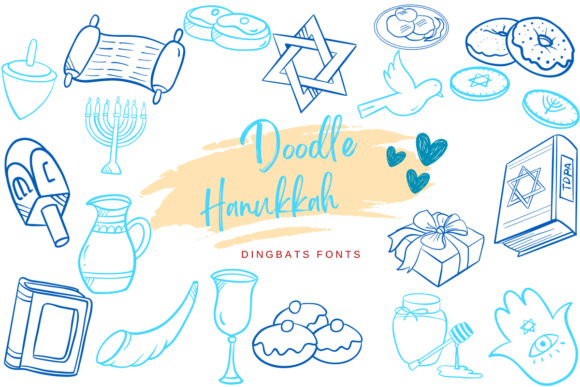
Get Ready to Sparkle Your Creations with the Doodle Hanukkah Font
Have you ever found yourself rummaging through your craft supplies, searching for the perfect embellishment to make your project truly special? Maybe you’re designing a wedding invitation, or creating a DIY decoration for your home. Whatever the occasion, you know that the right font can make all the difference in setting the tone and capturing the essence of your creative vision.
Enter the Doodle Hanukkah Font, a delightful dingbats font that brings a festive touch to any project. With its playful, hand-drawn design, this font is perfect for adding a personal and whimsical feel to your designs. Whether you’re a seasoned designer or a crafty enthusiast, the Doodle Hanukkah Font is a valuable addition to your creative arsenal.
Doodle Hanukkah Font Key Features
- Font Family: A unique, hand-drawn font designed specifically for Hanukkah celebrations, featuring traditional and modern elements.
- Character Set: Includes a wide range of characters, including Latin, Hebrew, and special Hanukkah-themed glyphs.
- Unique Characteristics: Features intricate doodle elements, festive patterns, and traditional Hanukkah symbols, adding a touch of personality to any design.
Doodle Hanukkah Font Review
I recently had the chance to work with the “Doodle Hanukkah Font” and here’s my honest take on it.
- The font has a great, playful feel to it, perfect for adding some whimsy to your holiday designs.
- The doodle elements add a fun, hand-drawn touch that’s sure to make your designs stand out.
- The font is highly customizable, allowing you to adjust the size, color, and doodle style to fit your project’s needs.
- The font may be a bit too busy for more formal or minimalist designs.
- Some users may find the doodle elements to be distracting or overwhelming in certain contexts.
- The font’s availability is limited to specific holidays and occasions, which may not be ideal for year-round use.
Overall, I think the “Doodle Hanukkah Font” is a great addition to any designer’s toolkit, especially for holiday-themed projects. With its playful feel and high level of customization, it’s sure to bring a smile to your clients’ faces. Just be mindful of its limitations and use it judiciously to get the best results.
Doodle Hanukkah Font: A Practical Application Guide
Some common use cases for the Doodle Hanukkah Font include:
Designing invitations for Hanukkah parties or events.
Creating custom graphics for social media or websites.
Adding a festive touch to holiday cards or gift tags.
Alternatives to Doodle Hanukkah Font
Menorah Script
Menorah Script is a beautiful, cursive font that’s perfect for adding a touch of elegance to your Hanukkah designs. It features intricate details and a traditional feel that’s reminiscent of ancient Jewish script. When to use: Use Menorah Script for formal invitations, wedding stationery, or other high-end designs where you want to convey sophistication and tradition.
Menorah Script compares to Doodle Hanukkah Font in that it also features a traditional feel, but it’s more formal and elegant. While Doodle Hanukkah Font is playful and fun, Menorah Script is more refined and sophisticated.
Hanukkah Nights
Hanukkah Nights is a modern, sans-serif font that’s perfect for creating bold and eye-catching designs. It features a clean, minimalist aesthetic that’s great for digital designs, such as social media graphics and website headers. When to use: Use Hanukkah Nights for modern and edgy designs where you want to convey energy and excitement.